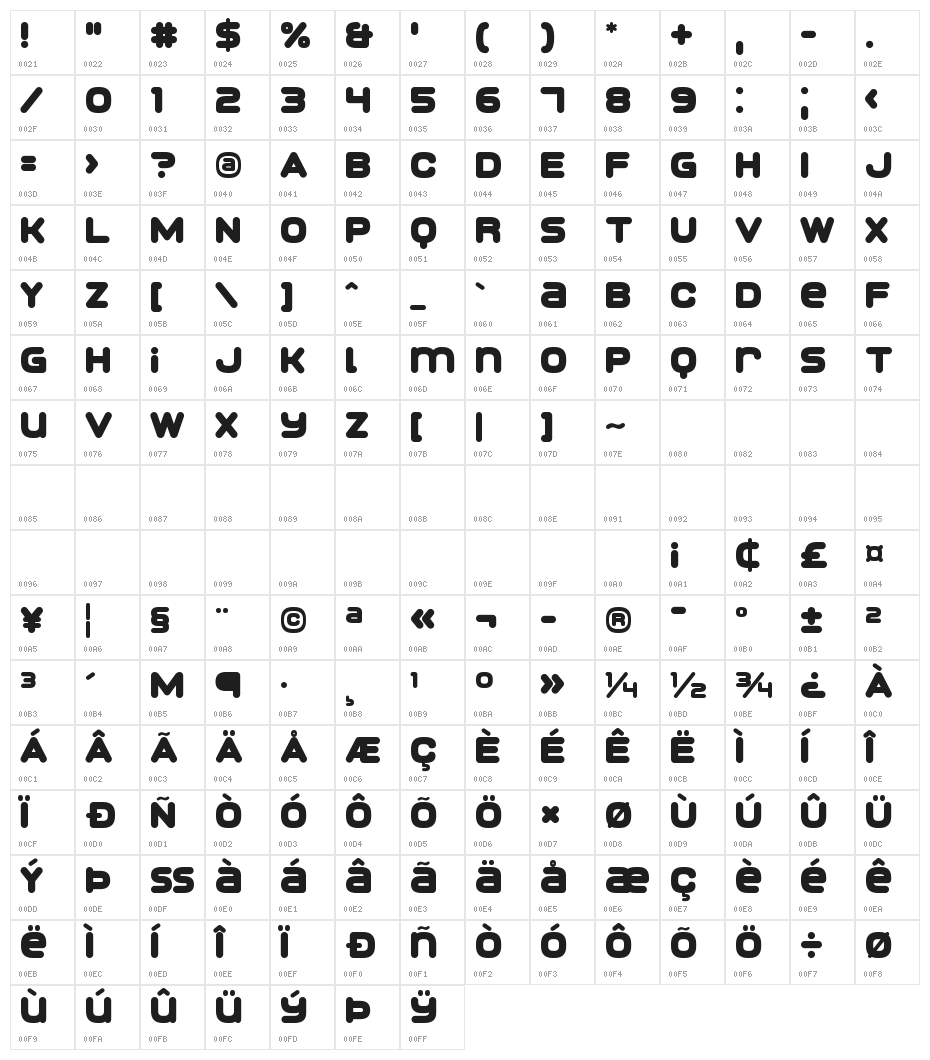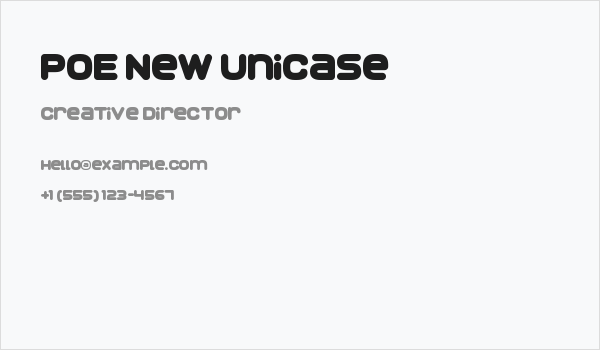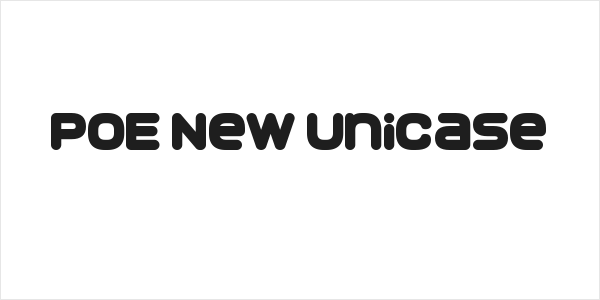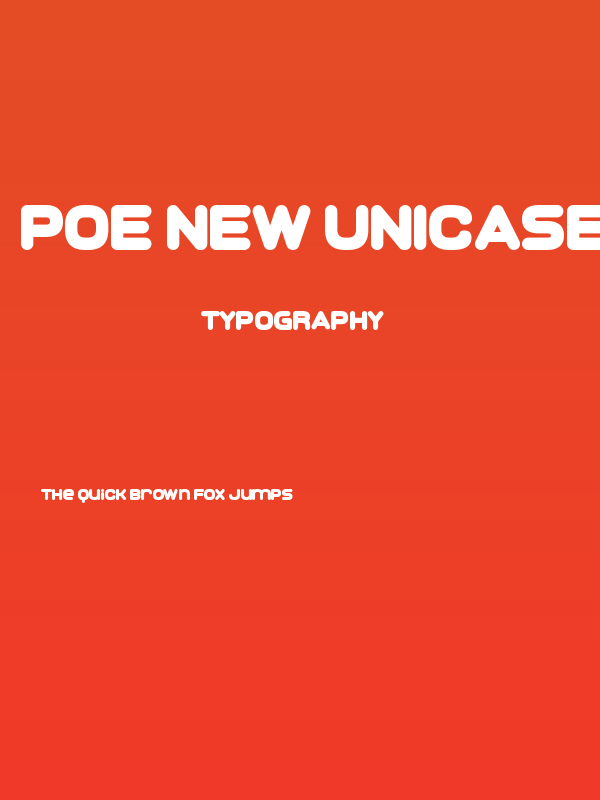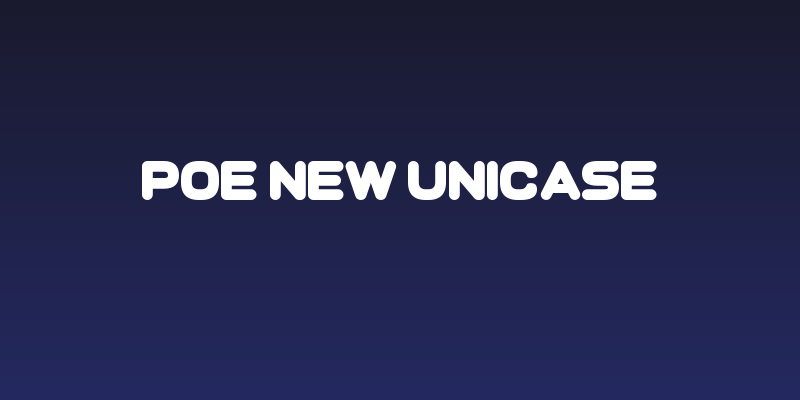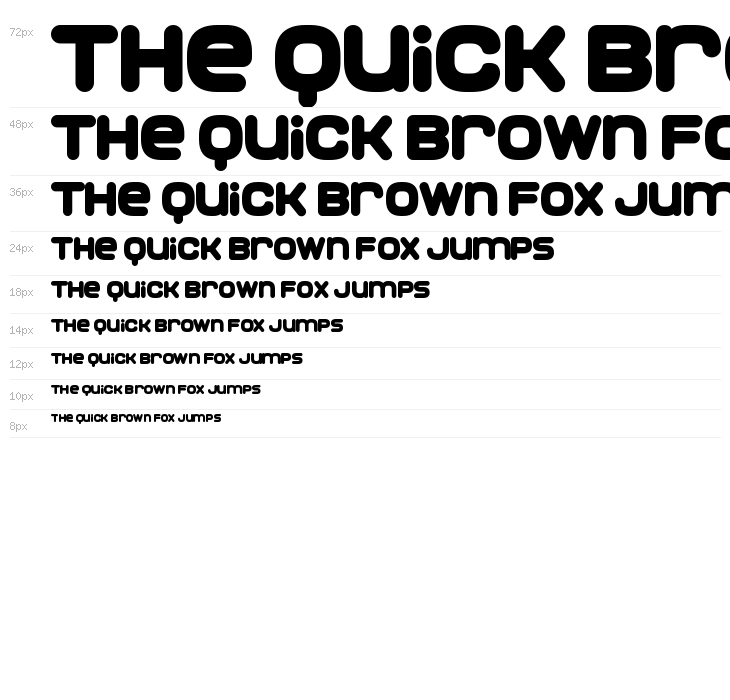
POE New Unicase Font
POE New Unicase Description
This font features a bold, rounded style with a modern and playful aesthetic. The characters are uniformly thick, creating a strong visual impact. The rounded edges and consistent stroke width give it a friendly and approachable feel. The uppercase and lowercase letters maintain a consistent height, contributing to a unicase appearance. Numbers and special characters follow the same design principles, ensuring a cohesive look across all elements. The font's boldness and unique style make it suitable for attention-grabbing designs.